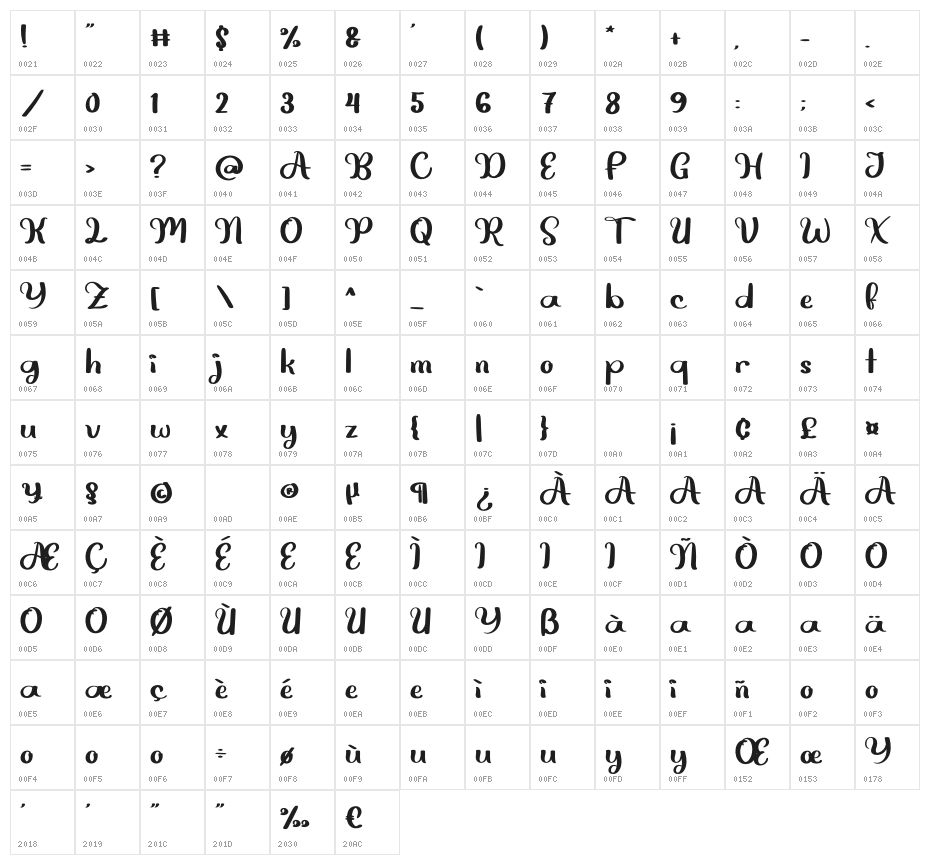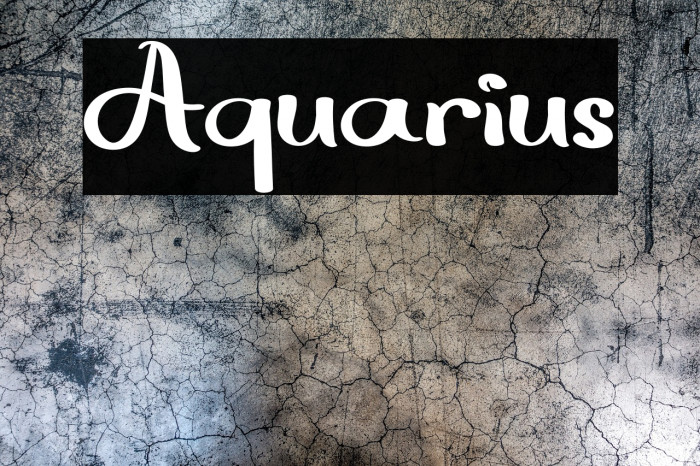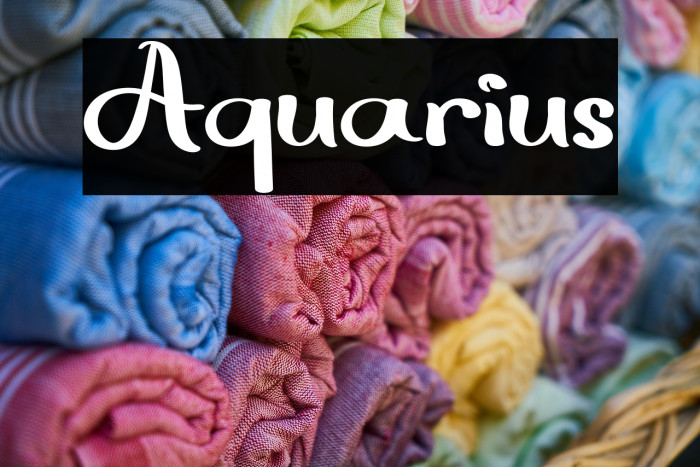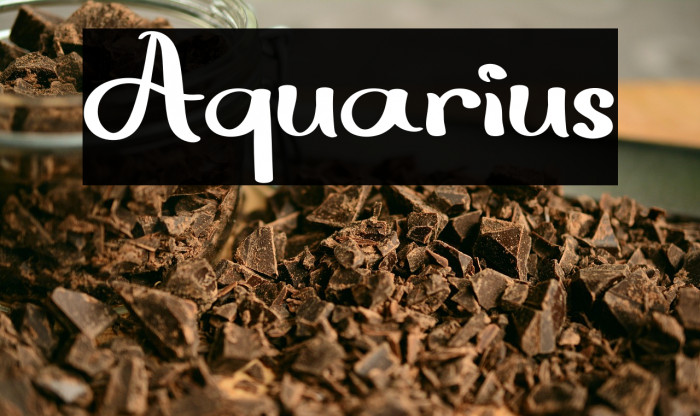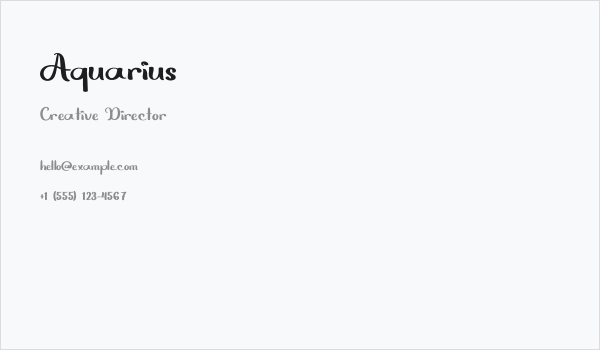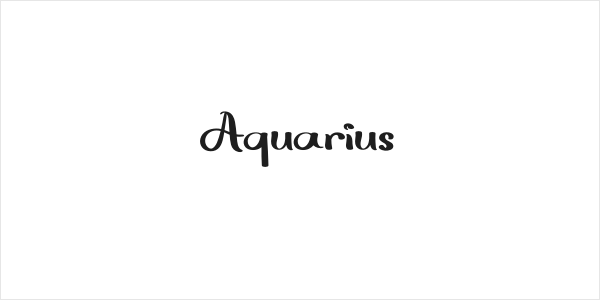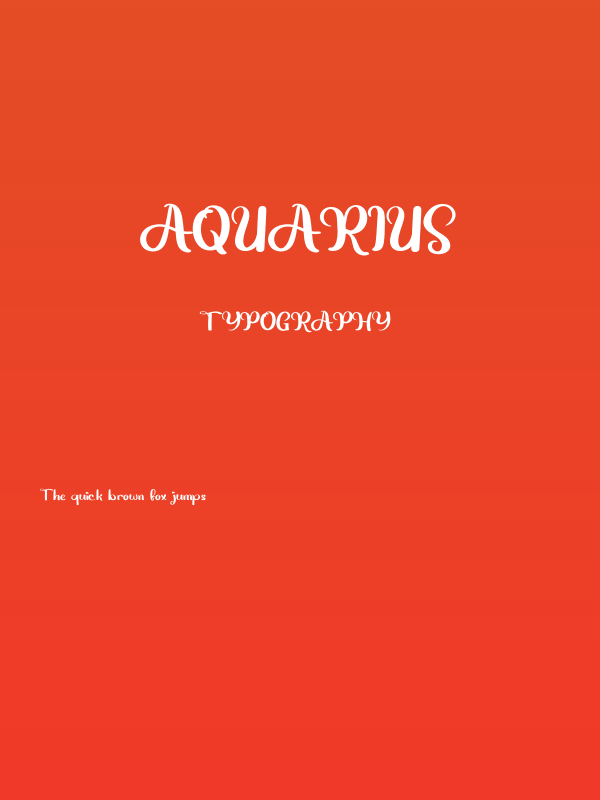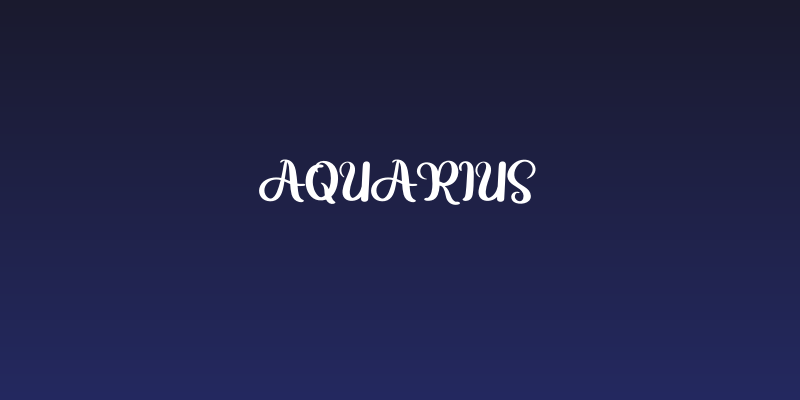
Aquarius Font
Aquarius Description
This font features a playful and whimsical design, characterized by its bold and flowing script style. The letters have a hand-drawn appearance with smooth curves and rounded edges, giving it a friendly and approachable feel. The uppercase letters are slightly more ornate, with some featuring unique flourishes and loops. The lowercase letters maintain a consistent style, complementing the uppercase with their own subtle embellishments. Numbers and special characters follow the same design ethos, ensuring a cohesive look across all text elements. The overall aesthetic is both modern and decorative, making it suitable for a variety of creative applications.
| Proposed Projects | Ideal for greeting cards, invitations, branding projects, and playful headlines. |